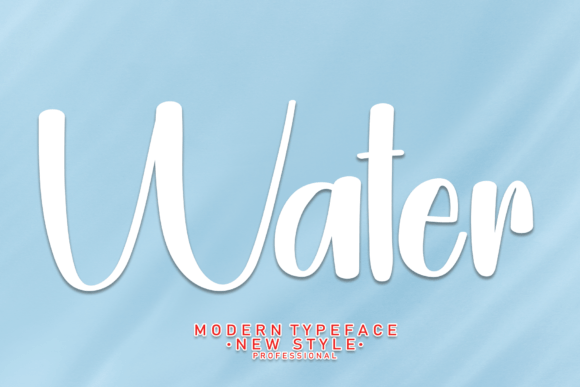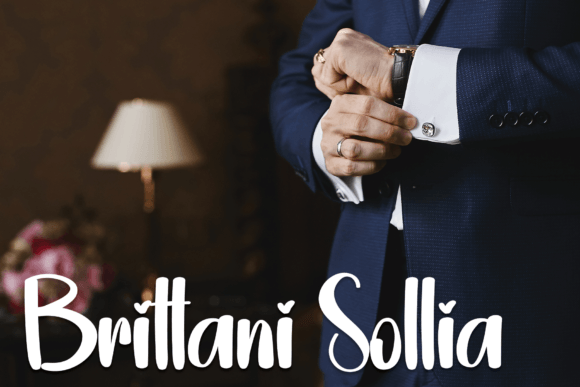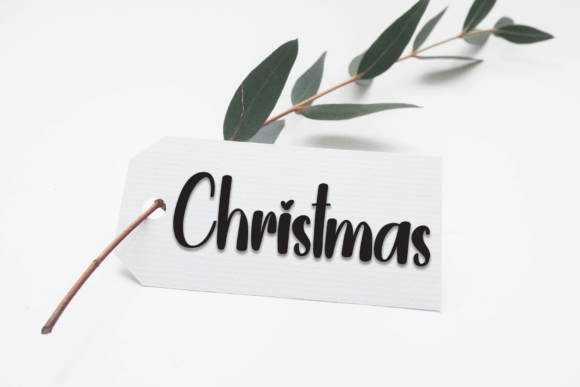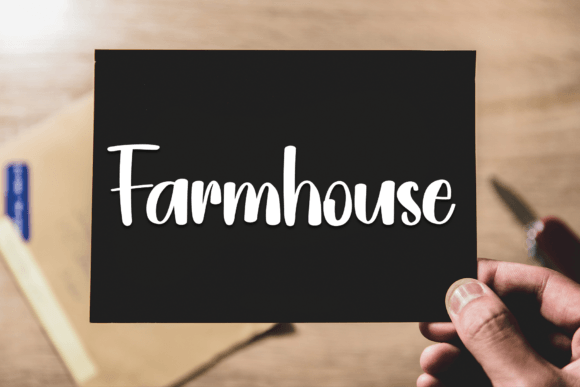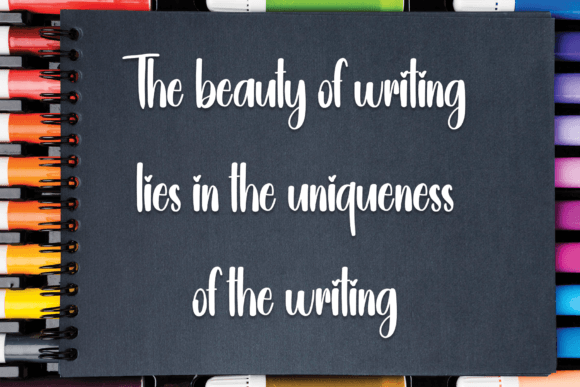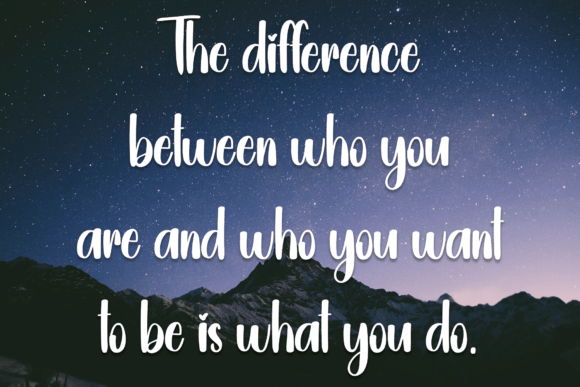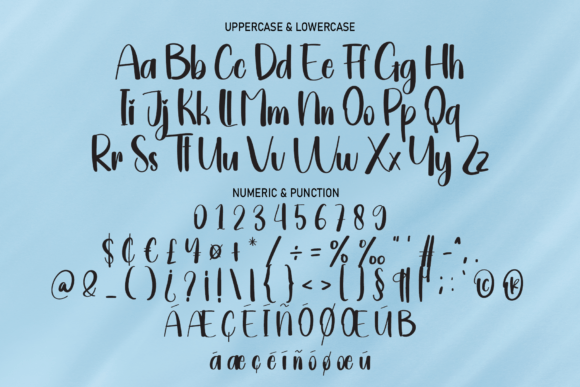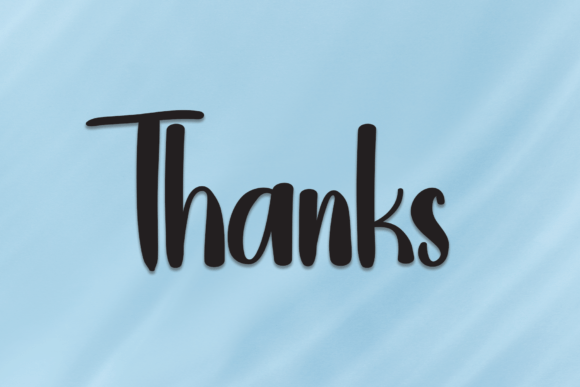
Water Font
About Water Font
Water Font is a romantic and artistic handwritten typeface crafted with elegance in mind. Its fluid strokes and modern structure make it ideal for designers who want to infuse personality into their creative projects. Whether you’re working on a wedding invitation or a product label, this font adds charm and style with ease.
Designed to offer visual appeal and versatility, Water Font stands out in both digital and print formats. The natural handwriting feel provides a warm, personal touch that feels authentic and professional. Moreover, the characters flow smoothly, which gives your text a relaxed and refined look.
Ideal Uses for Water Font
Water Font is a versatile asset that adapts to many types of creative work. In fact, it’s especially well-suited for:
• Wedding invitations and stationery
• Wall art and decorative prints
• Social media post graphics and logos
• Product packaging and branding
• Label design for beauty or food products
• Watermarks and photography branding
• Advertisements and event promotions
Because of its stylish flow and friendly tone, it can elevate even the simplest layout.
Features That Make It Shine
Water Font includes a full set of handwritten characters that feel modern yet timeless. Each letter maintains consistent stroke width for clean readability. Also, the font is PUA encoded, which allows quick access to swashes, alternates, and special glyphs without extra software.
Furthermore, it blends well with both serif and sans-serif fonts, which gives you more creative flexibility when building a complete design layout.